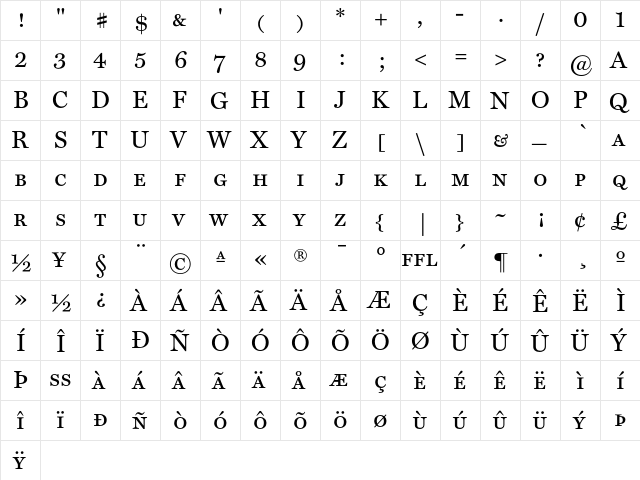
MillerText Regular
Design Context for MillerText Typeface
MillerText is a composed and adaptable typeface that performs quietly and consistently across a wide range of design contexts.
Pro Tip: Use MillerText in both headline and body roles to test its range before committing to a single application.